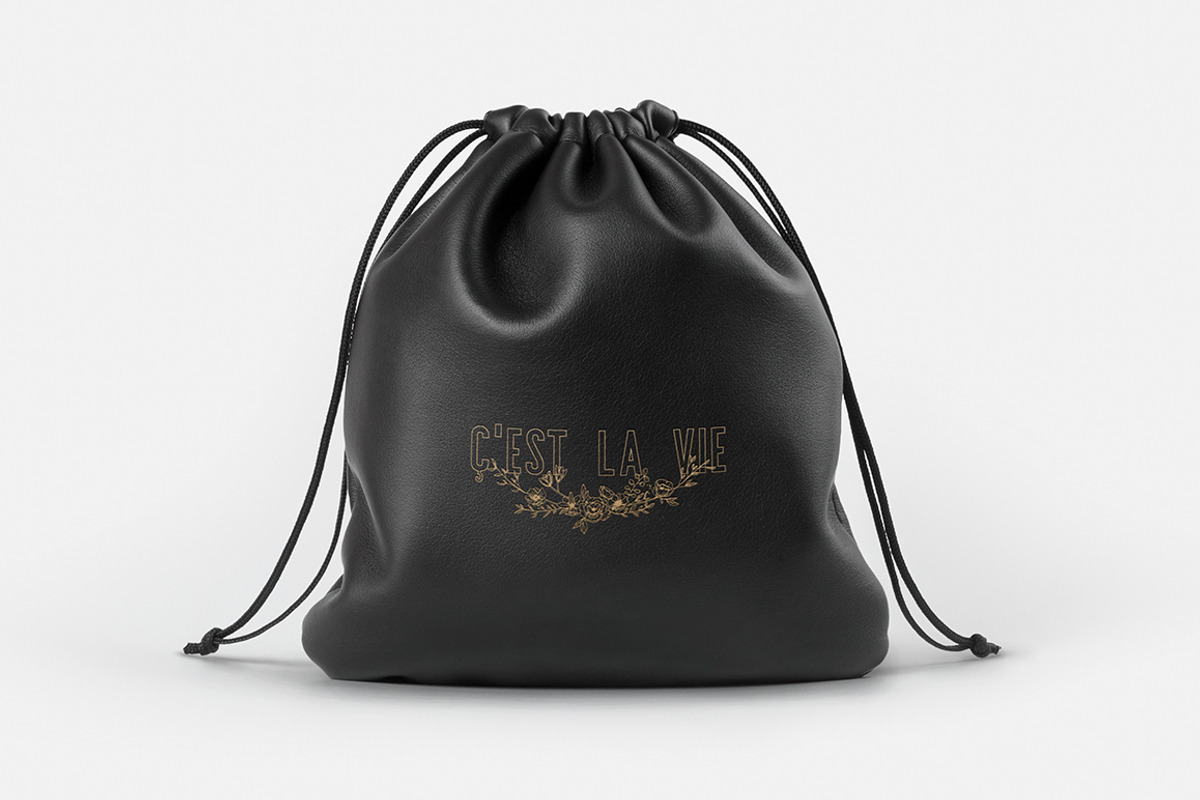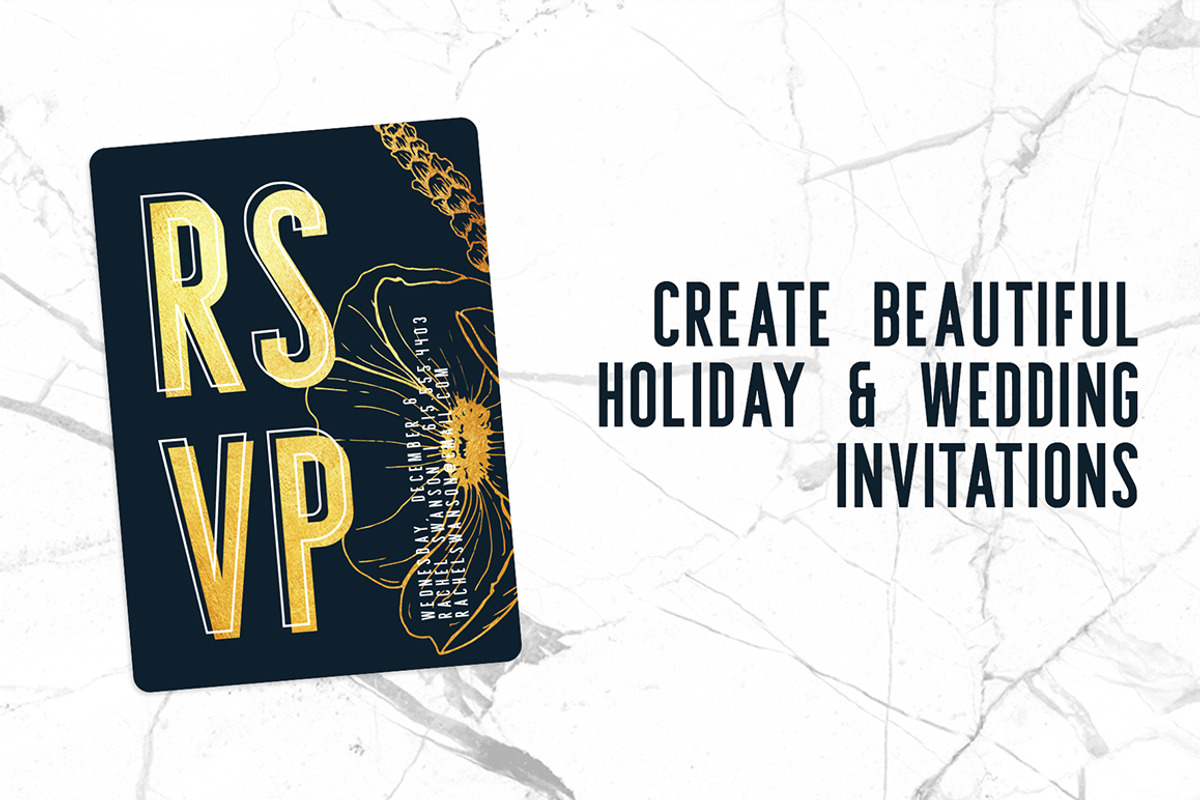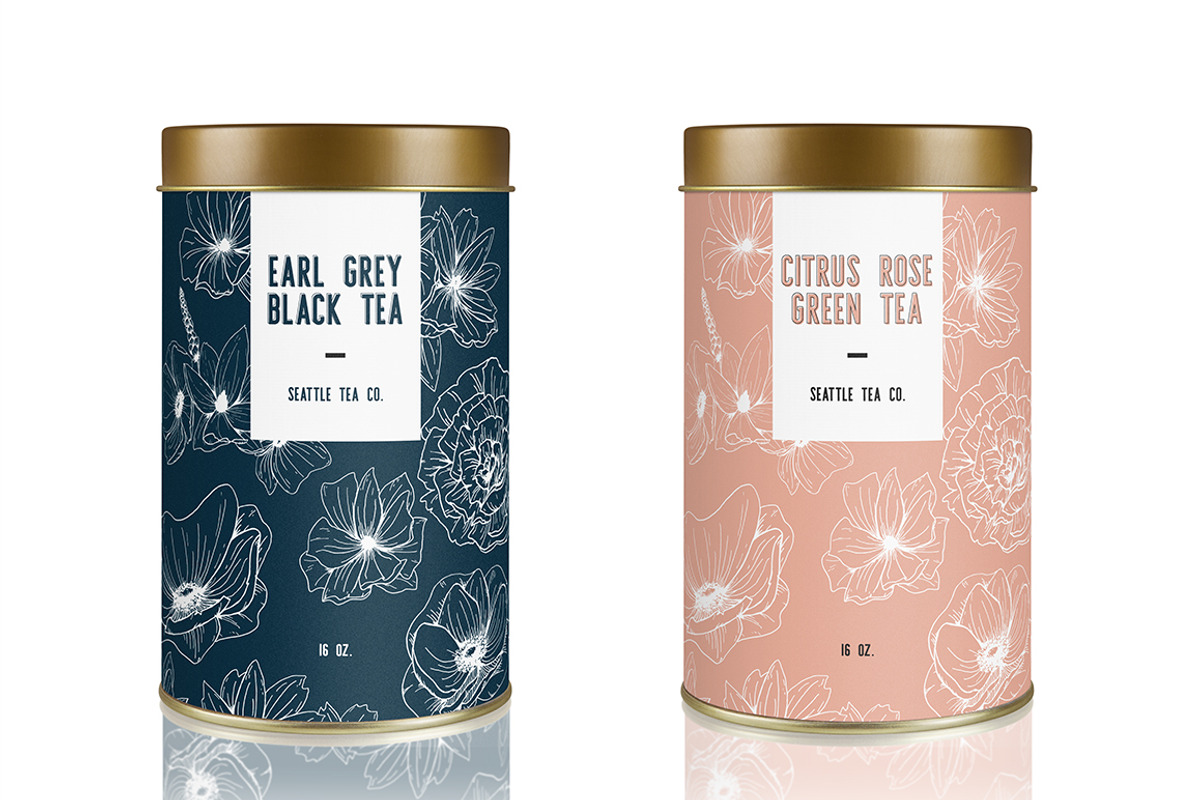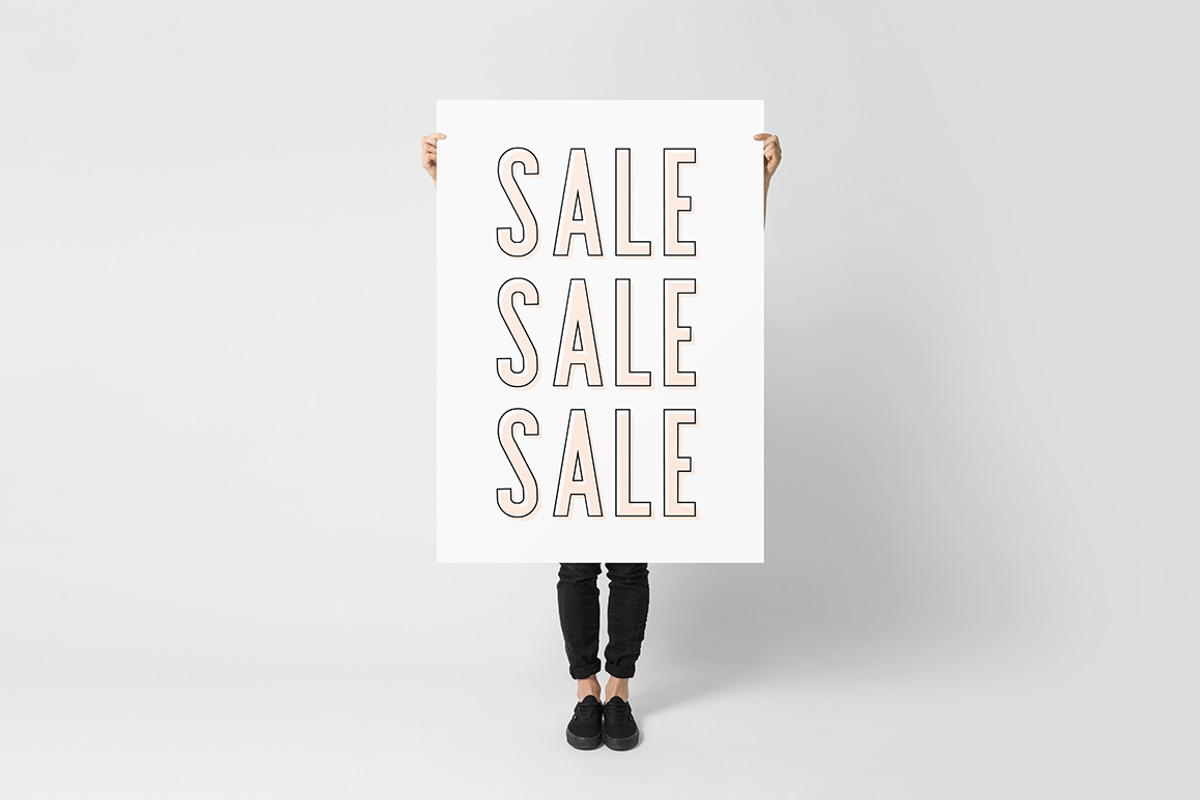
Prague | Font Duo + Florals
Prague is a sleek and modern font duo with bonus vector floral elements that is perfect for logo design, wedding and holiday invitations, social media, and so much more!
The outline font automatically offsets, making it really simple to layer these fonts together perfectly. Simply duplicate your "Regular" layer and switch the setting to "Prague Offset" or "Prague Offset Extra", and the type will automatically offset up and to the left for you!
Prague comes with three font files – Prague Regular, Offset, and Offset Extra – giving you two different offset options. It also comes with non-English characters (test for the ones you need in the box below).